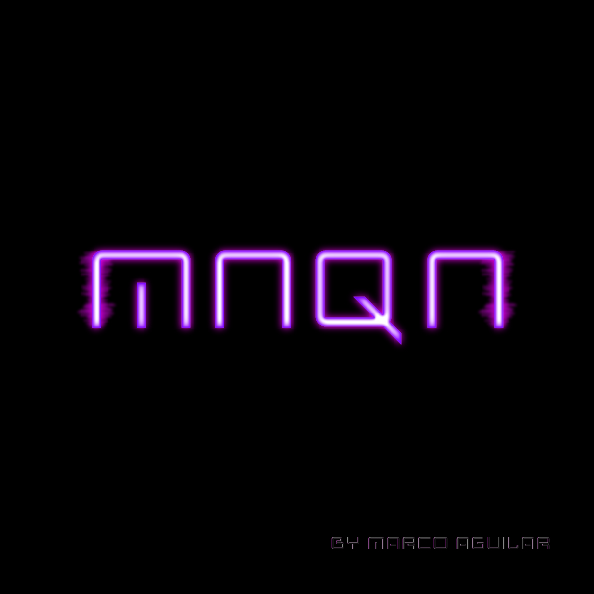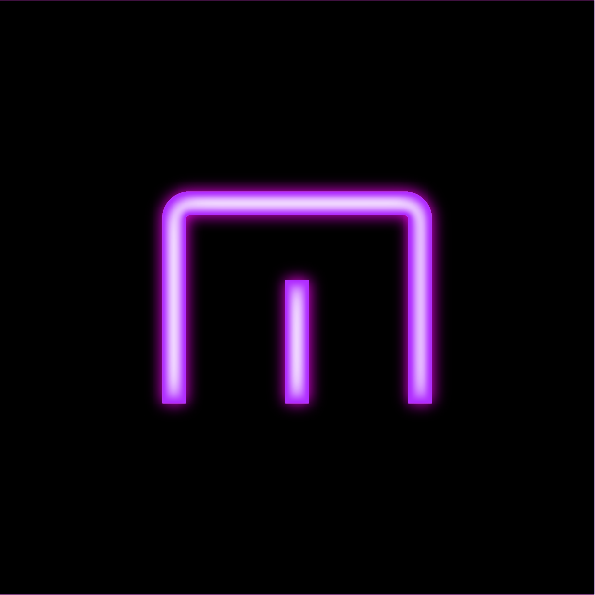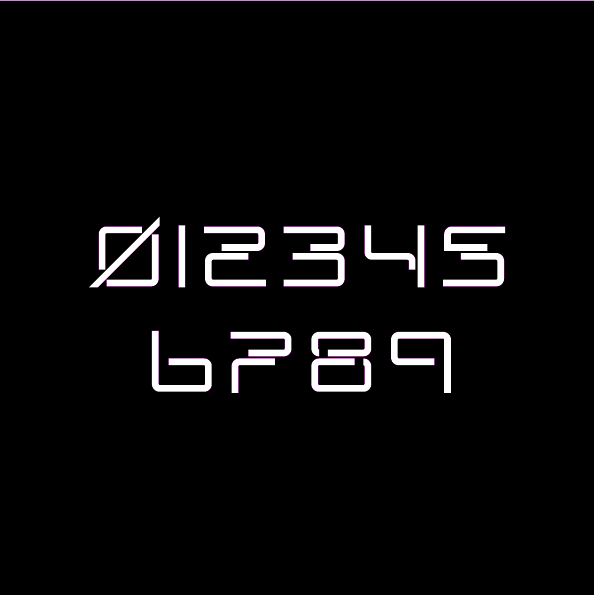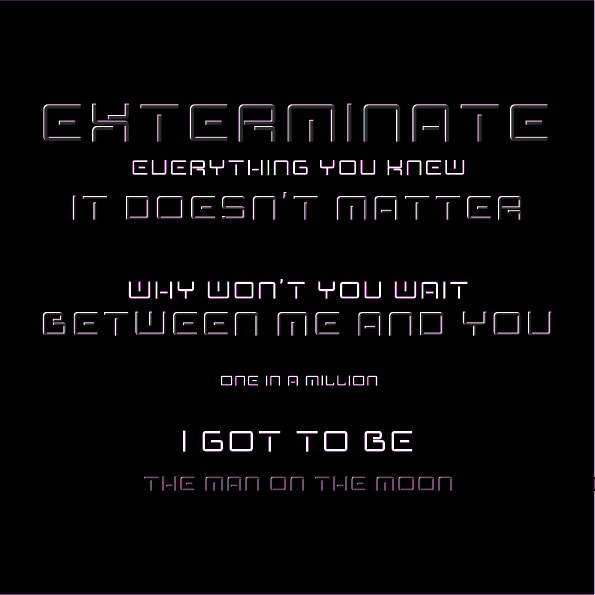
The letter "O"
Symbols
“Insired by an artist's name on an album, I decided to make a complete alphabet that would fit the style of these 4 letters "MNQN," which is the name of the artist.”
It'd actually be 3 letters because there are 2 N's in the Artist's Name... ?
I really like those numerals and K. Nice job!
MNQNby A-Reyes